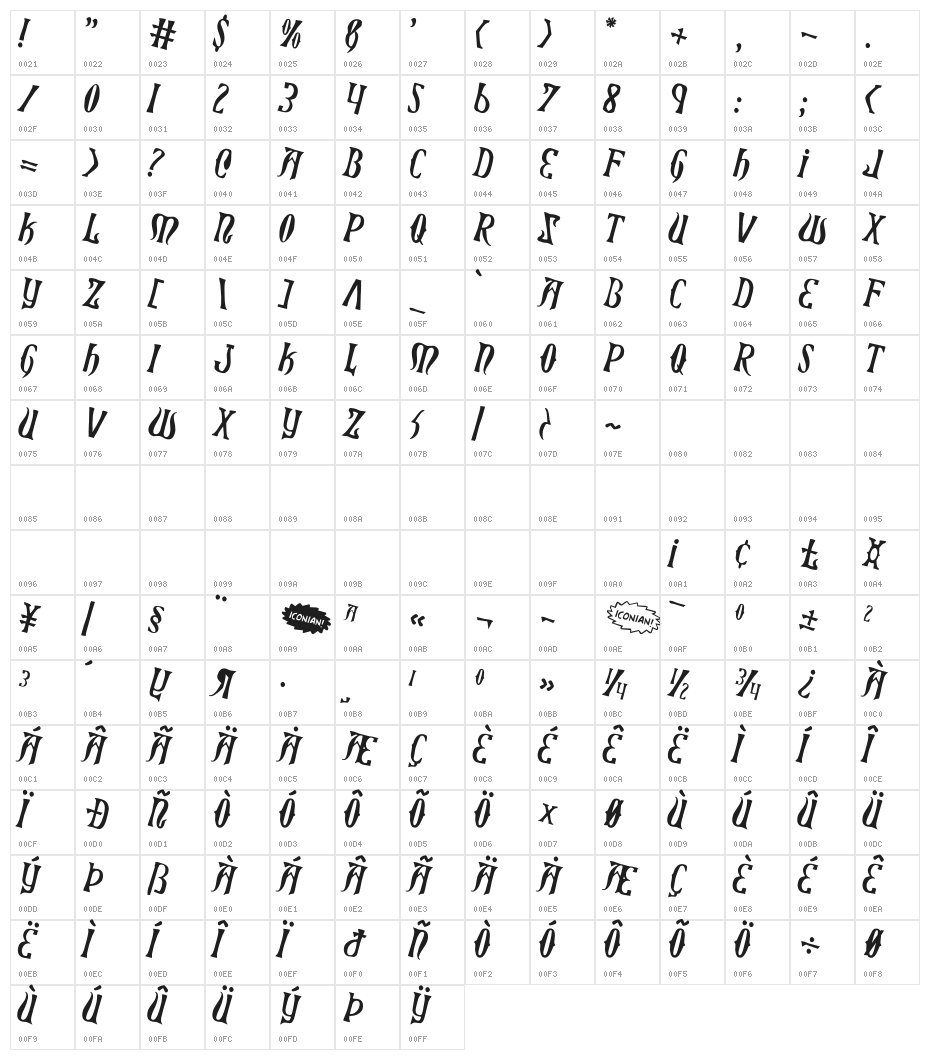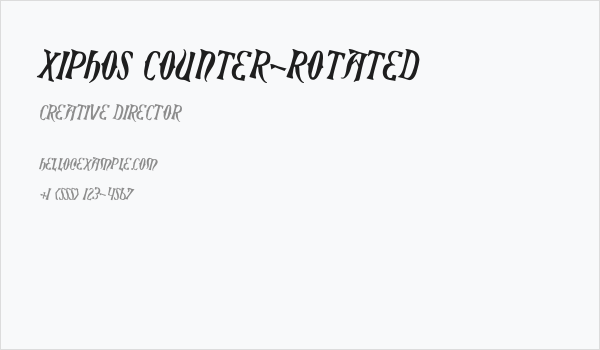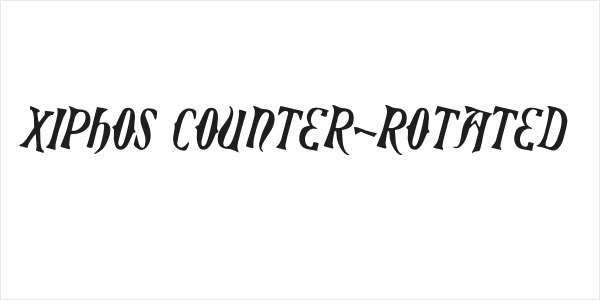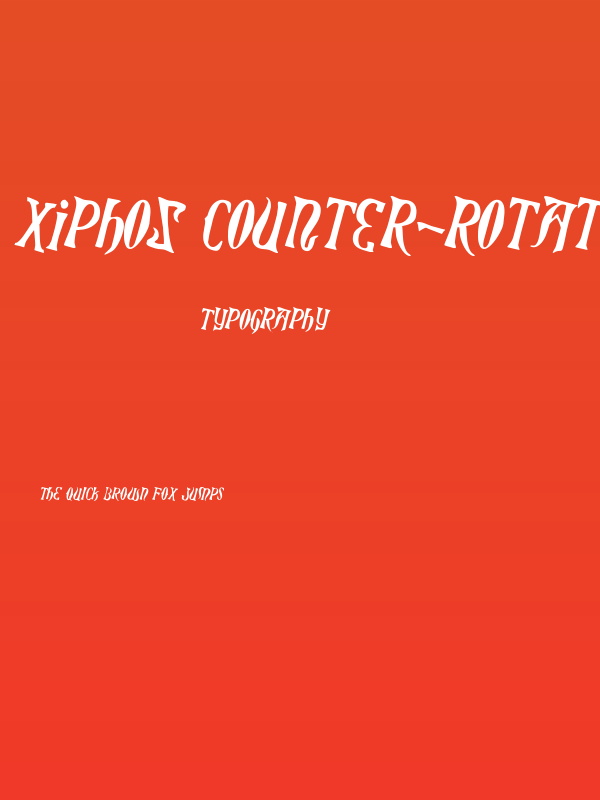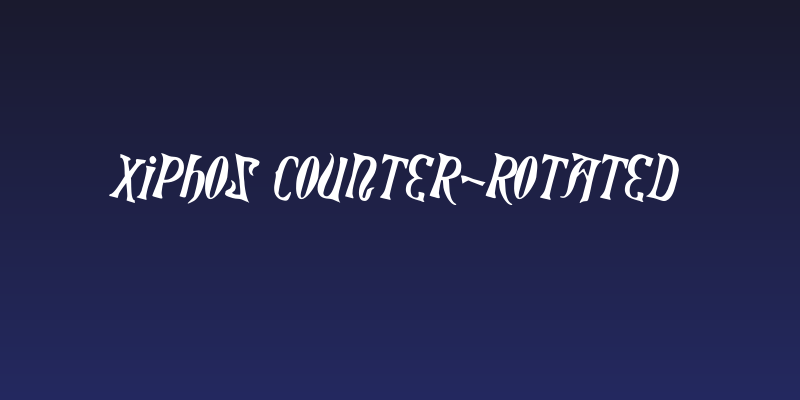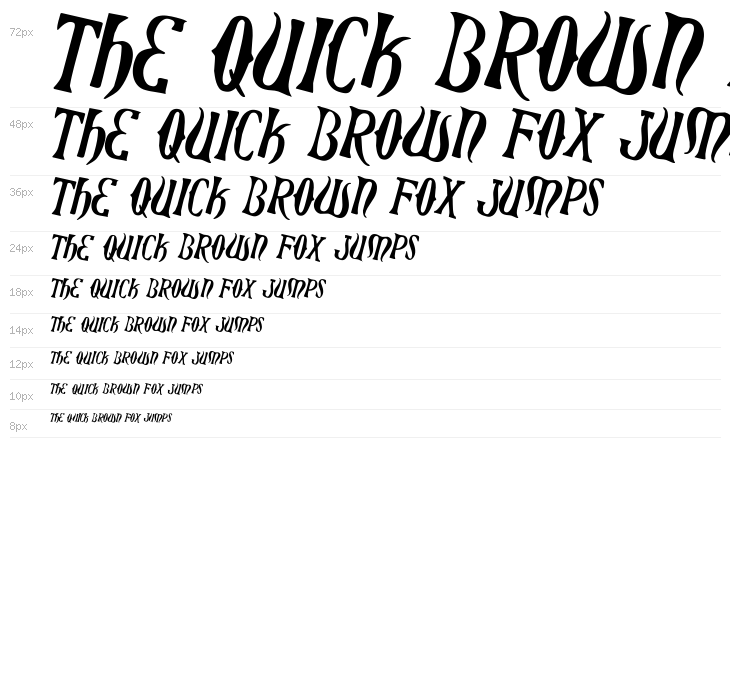
Xiphos Counter-Rotated Font
Xiphos Counter-Rotated Description
This font features a dynamic and bold style with a unique counter-rotated design. The characters exhibit a strong, angular form with a slight slant, giving them a sense of movement and energy. The uppercase and lowercase letters maintain a consistent style, with sharp edges and pointed terminals. The numbers and special characters follow the same aesthetic, ensuring a cohesive look across all glyphs. The font's distinct appearance makes it suitable for eye-catching designs that require a touch of modern flair.
| Proposed Projects | Ideal for branding, poster design, and any project needing a striking, modern typeface. |